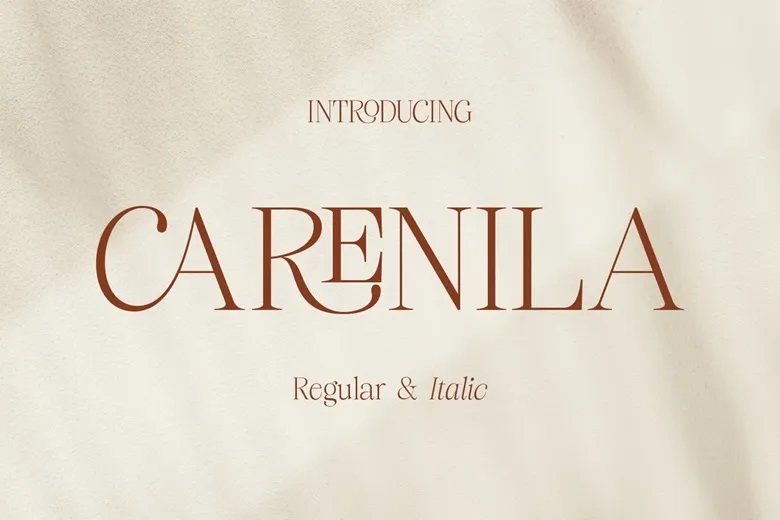
Carenila Font
Carenila is a modern style serif font that comes in a regular and italic version.. You can then apply this font to branding, graphic designs, copywriting among others. This font is PUA encoded which means you can access all of the glyphs and swashes without any problem!
Carenila Serif Font